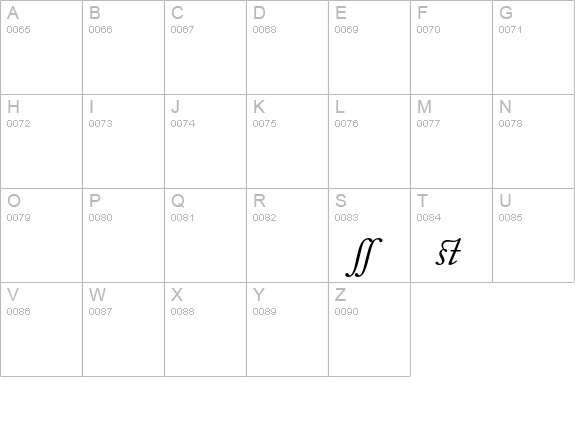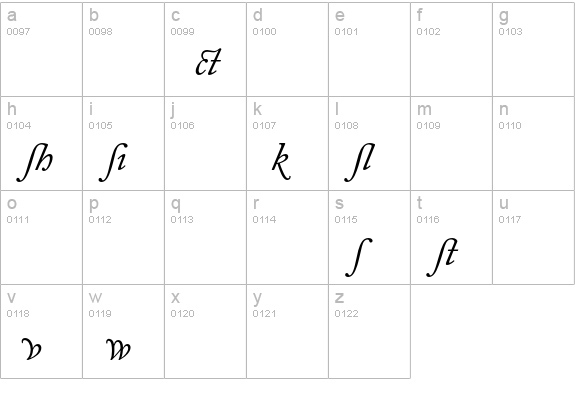
Adobe Caslon Italic Alternate is a distinctive, italic variant in the Adobe typeface family \xE2\x80\x94 well suited to design and typography projects.
Adobe Caslon Italic Alternate is a classic and elegant font that exudes sophistication and timeless beauty. Its graceful slant and delicate serifs add a touch of refinement to any design project. The alternate characters in this font provide even more versatility and style options for your typography needs. Best of all, Adobe Caslon Italic Alternate is available for free download at FontsMarket.com. This means you can easily access this high-quality font and elevate your design projects without any cost. Whether you're designing a wedding invitation, a magazine layout, or a branding project, Adobe Caslon Italic Alternate is sure to add a touch of class and sophistication to your work. Download it today and enhance your designs with this exquisite typeface.